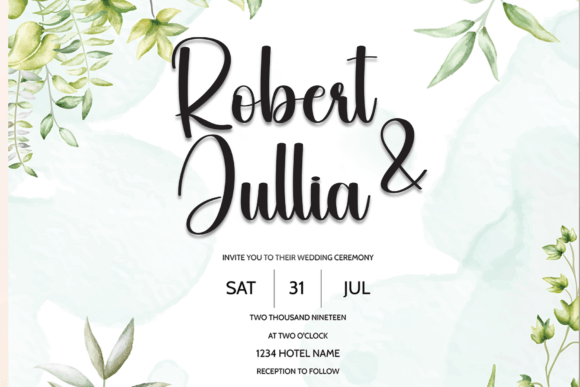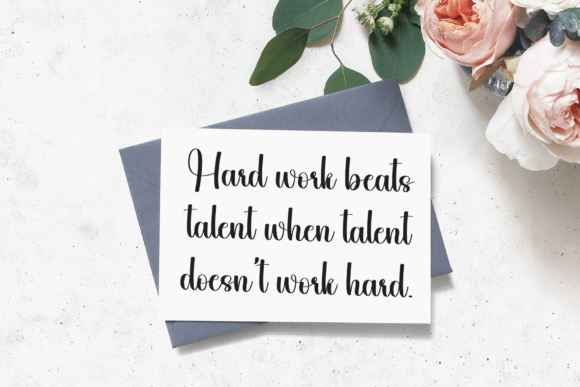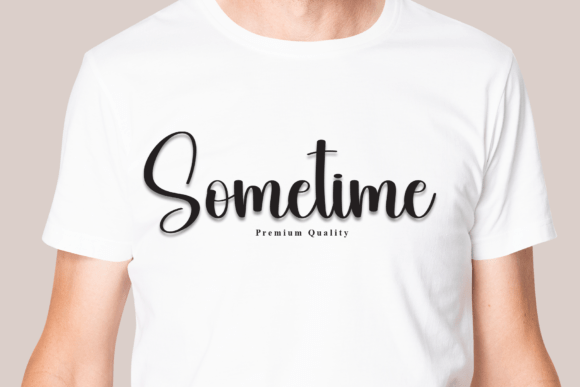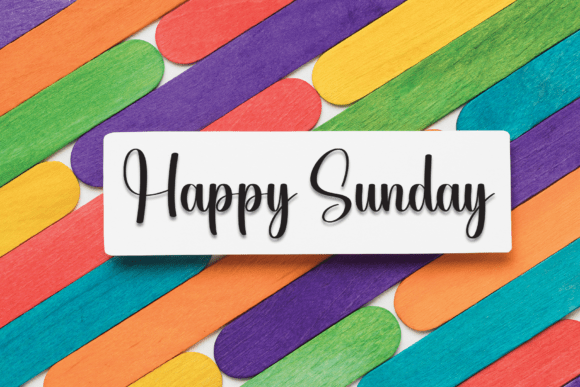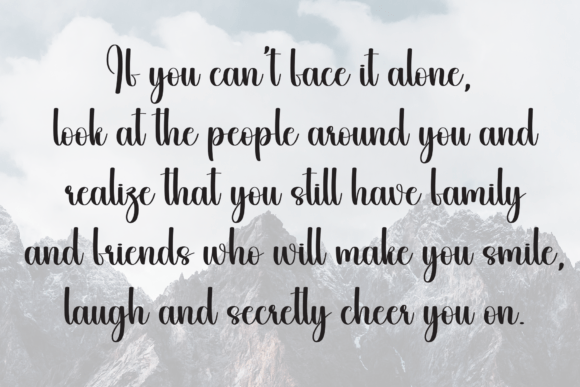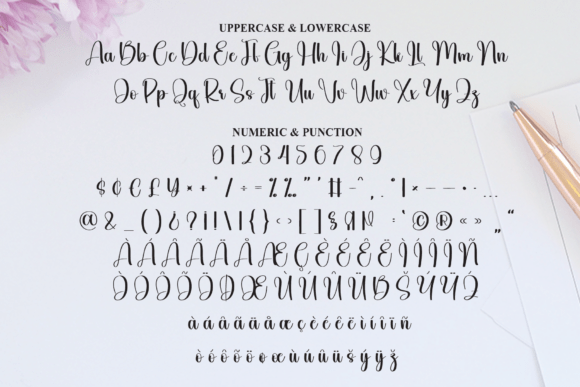
Discover the Elegance of Angela Notes Font: Elevate Your Designs with Sophistication
In the world of typography, few fonts manage to capture the essence of elegance and charm as effectively as Angela Notes. This stylish handwritten script font has been making waves in the design community, and for good reason. Its fluid, graceful strokes bring a level of sophistication and personal touch to any project, making it a favorite among designers, crafters, and brands looking to make a statement.
The Characteristics of Angela Notes Font
Angela Notes is distinguished by its smooth curves and natural flow, which create a timeless, refined look. This font is not just a typeface; it’s an expression of style and class. Here are some key characteristics that make Angela Notes stand out:
- Fluid and Graceful Strokes: The font features strokes that flow seamlessly into one another, creating a harmonious and elegant appearance.
- Handwritten Script Style: With its roots in handwritten scripts, Angela Notes brings a personal and intimate feel to your designs, perfect for making them stand out.
- Elegance and Charm: The overall look and feel of the font exudes a sense of sophistication and charm, making it suitable for high-end branding, luxury invitations, and premium stationery.
Perfect for Branding, Invitations, and Stationery
Angela Notes is incredibly versatile, making it suitable for a wide range of applications. Here are some of the areas where this font truly shines:
- Branding: For businesses looking to establish a sophisticated and elegant brand identity, Angela Notes can be a game-changer. It’s perfect for logos, business cards, and packaging designs that require a touch of class.
- Invitations: Whether you’re planning a wedding, a birthday party, or any other special event, Angela Notes can add a personal and luxurious feel to your invitations, setting the tone for a memorable occasion.
- Stationery: Elevate your stationery designs, including letterheads, notebooks, and journals, with the refined and elegant look of Angela Notes.
Why Designers and Crafters Love Angela Notes
The popularity of Angela Notes among designers and crafters can be attributed to its unique blend of elegance, versatility, and ease of use. Here are some reasons why it’s become a favorite:
- Easy to Read: Despite its elegant and cursive nature, Angela Notes remains highly legible, making it suitable for both headings and body text.
- Customizable: The font comes with a range of variations and can be easily customized to fit the specific needs of your project, allowing for endless creative possibilities.
- Timeless Appeal: Unlike trends that fade over time, Angela Notes has a timeless quality that ensures your designs remain relevant and stylish for years to come.
How to Use Angela Notes in Your Designs
- Pair with Complementary Fonts: Combine Angela Notes with sans-serif fonts for contrast, or with other script fonts for a layered, elegant look.
- Experiment with Colors: While the font looks stunning in classic black and white, don’t be afraid to experiment with colors that match your brand or design theme.
- Play with Sizes: Use Angela Notes in various sizes to create visual hierarchy and emphasize key elements in your design.
Angela Notes font is a stylish and elegant addition to any designer’s toolkit. Its fluid strokes, natural flow, and timeless appeal make it perfect for creating sophisticated and charming designs. Whether you’re working on branding, invitations, stationery, or any other project that requires a touch of elegance, Angela Notes is sure to exceed your expectations. Discover the beauty and versatility of Angela Notes today and elevate your designs to new heights of sophistication.